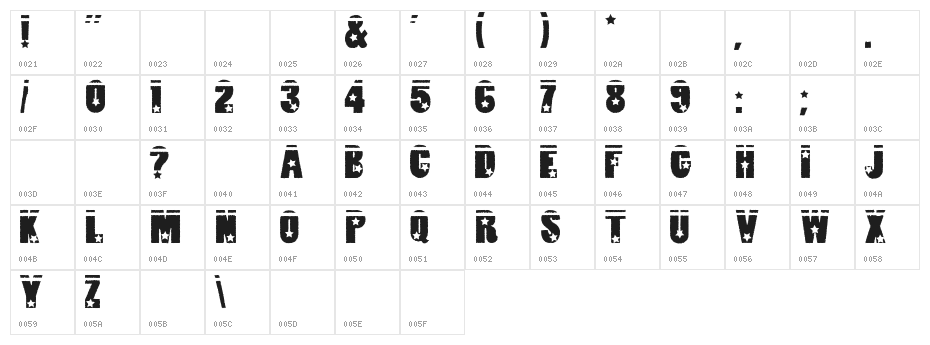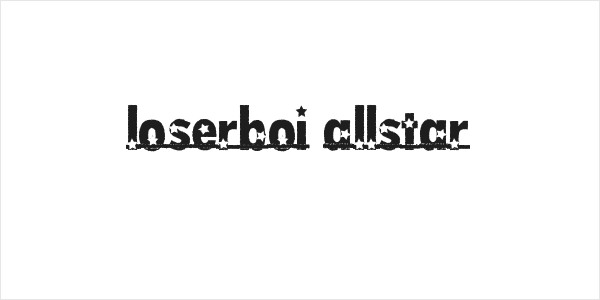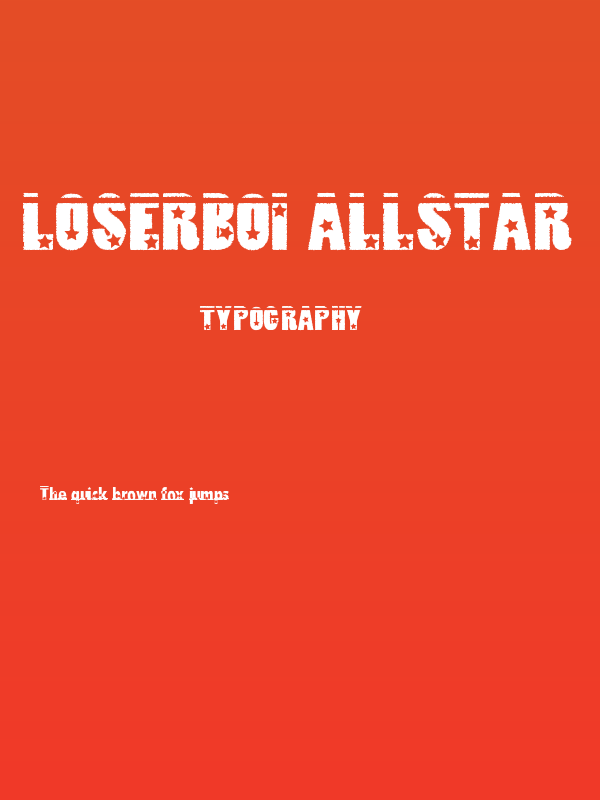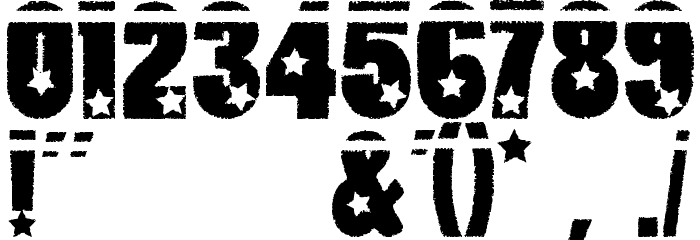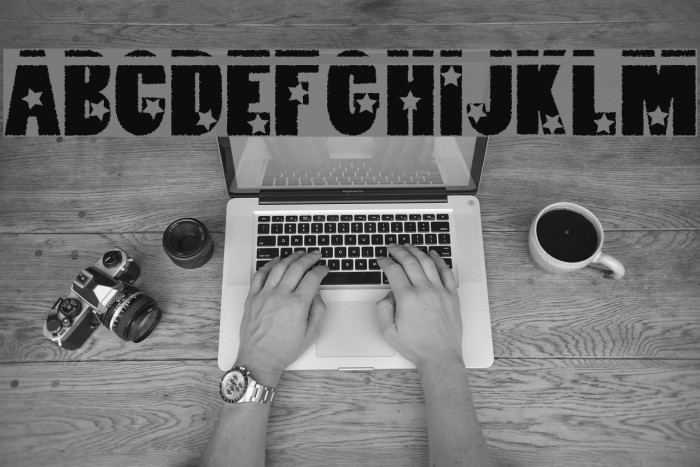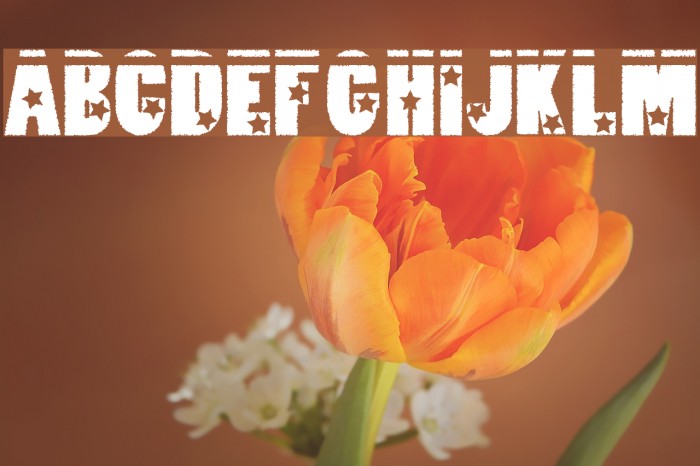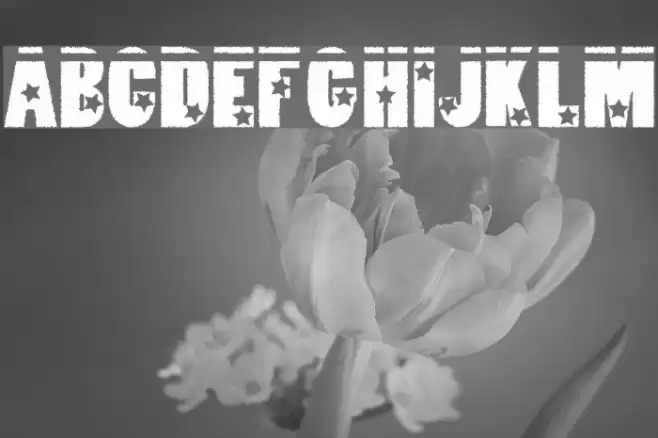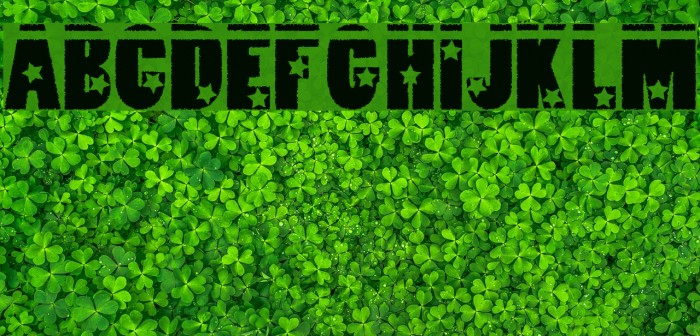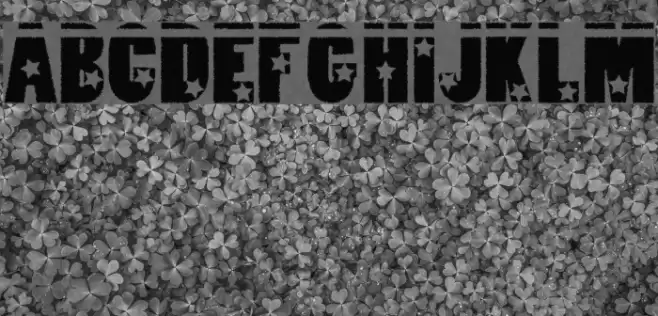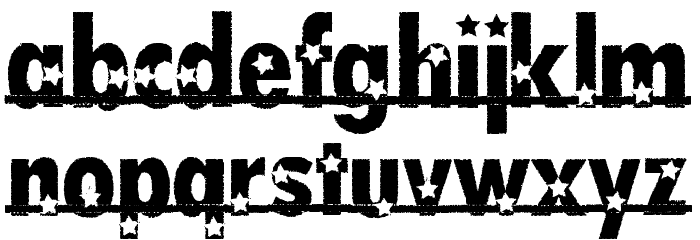
loserboi allstar Font
loserboi allstar Description
This font features a bold, decorative style with a unique star pattern embedded within each character. The uppercase and lowercase letters are designed with a strong presence, making them ideal for attention-grabbing headlines. The numbers and special characters maintain the same boldness and decorative elements, ensuring consistency across all text. The font's playful and artistic design is perfect for projects that require a standout, creative touch. The star motifs add a whimsical and dynamic feel, making it suitable for themed events or branding that aims to convey fun and excitement.